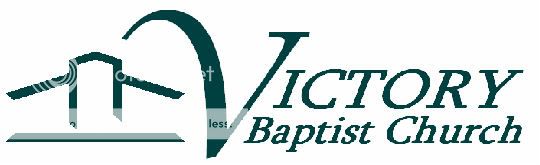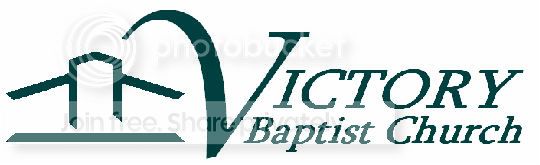
Can you name this font?
For the life of me, I have no idea what font this is.
Someone else created this logo for embroidery, but it was created in a stupid program, exported as a jpg and the original was lost.
I can't figure out what font the Victory is written in.
Can anyone help me out and name that font?
I need to pull it into Illustrator so I can make a scalable image, but stupidly I just can't find the font.
I think it is Admark Bold Italic.
I think it is Admark Italic but not the Bold. Because in bold it becomes slight bigger than this.
Cool, I think that is the family.
Sure enough, it is Admark...
Stupidity - Looks like Lucidia Caligraphy is actually the font that was initally used. It was just morphed apparently.
admark italic